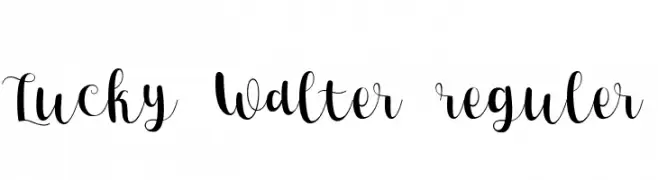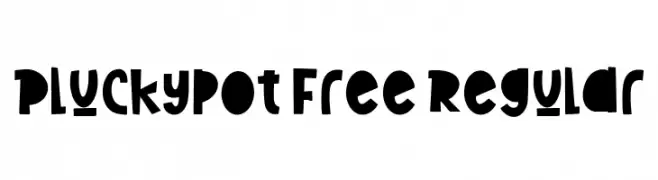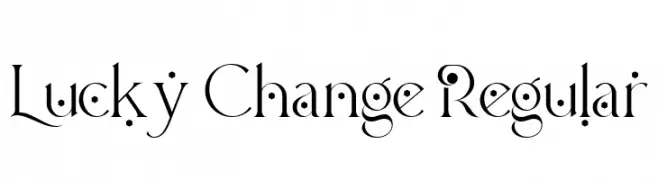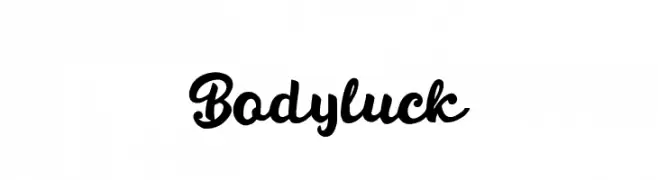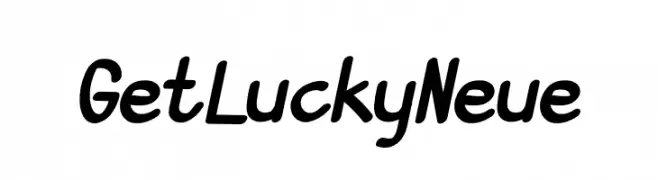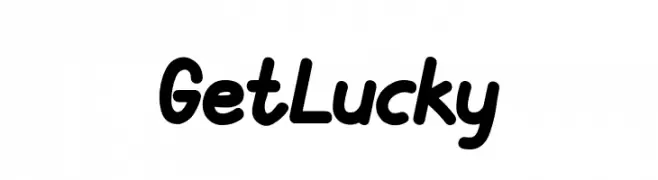
A bold, expressive script font with dynamic, flowing letterforms.
A playful, bold handwritten font with smooth curves and rounded edges.
A playful, handwritten-style font with dynamic strokes.
A lively and expressive handwritten font with bold, dynamic strokes.
An elegant, flowing script font with graceful, cursive letterforms and decorative flourishes.
A playful, bold font with quirky, uneven shapes and rounded letterforms.
A modern and decorative font with elegant curves and artistic flourishes.
A bold, playful script font with a handwritten style and decorative elements.
A playful, handwritten-style font with bold, rounded strokes.
A playful, rounded font with smooth curves and a friendly appearance.